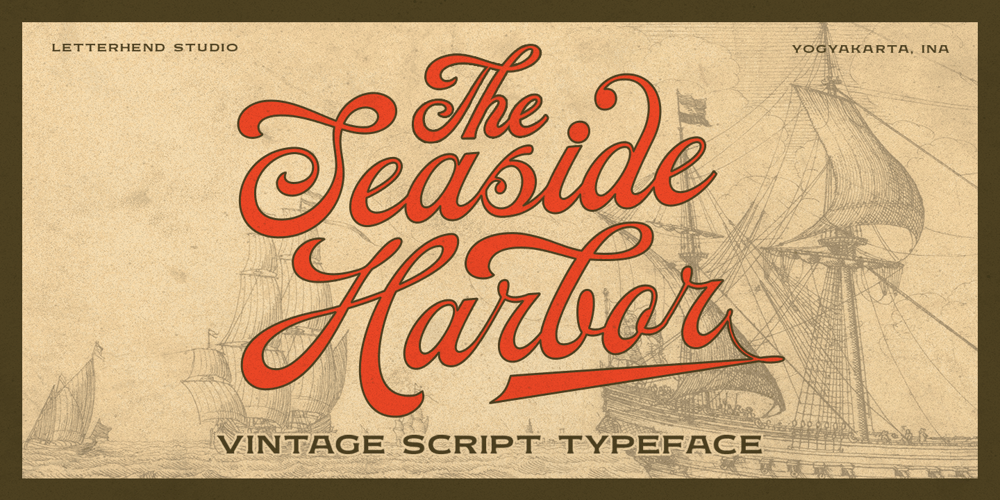
Seaside Harbor
Seaside Harbor font
Seaside Harbor Font Family was designed by Hendry Juanda and published by Letterhend. Seaside Harbor contains 1 styles and family package options. Introducing, The Seaside Harbor, A Vintage Script. This typeface has nostalgic feel because of its style, so the font is really match for your project with retro / vintage theme. The swashes make this typeface unique even more so you can use it to create beautiful vintage lettering in a sec.This font perfectly made to be applied especially in logo, and the other various formal forms such as invitations, labels, logos, magazines, books, greeting / wedding cards, packaging, fashion, make up, stationery, novels, labels or any type of advertising purpose.Features : Uppercase & lowercase Numbers and punctuation Alternates & Ligatures Multilingual Support PUA encoded